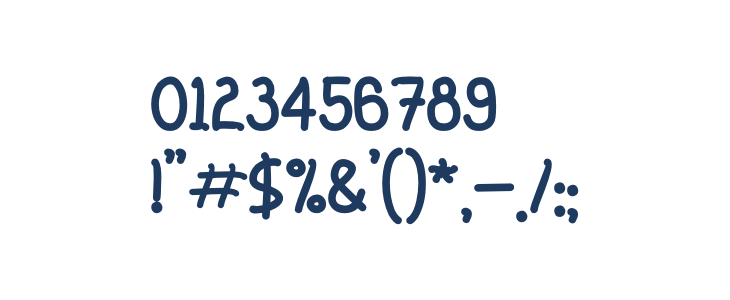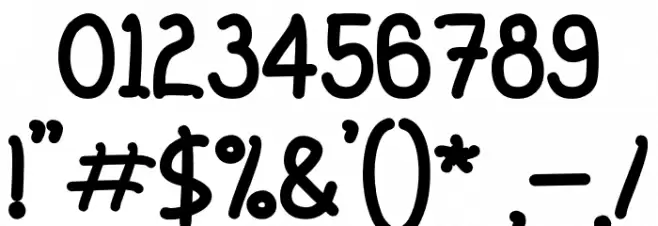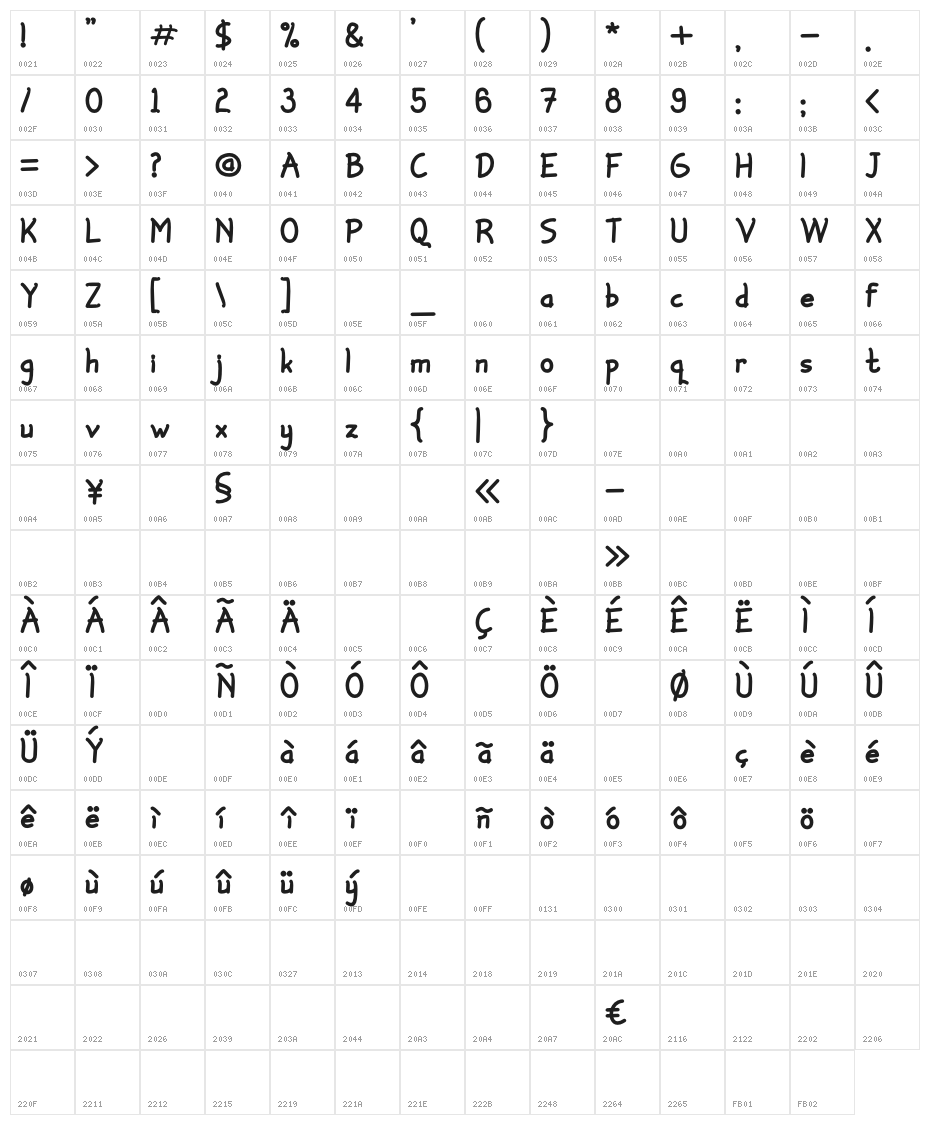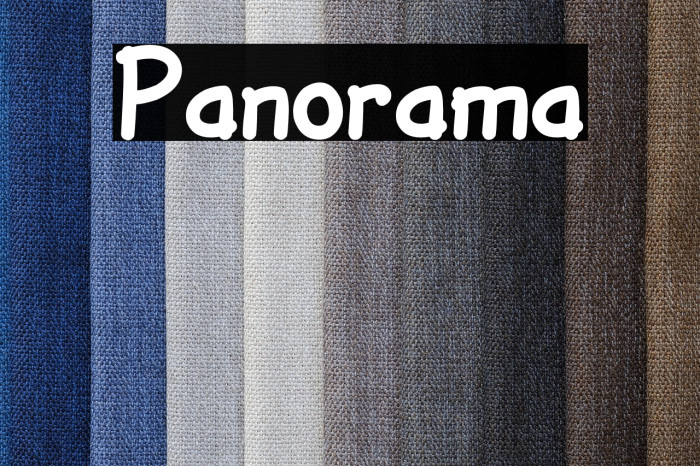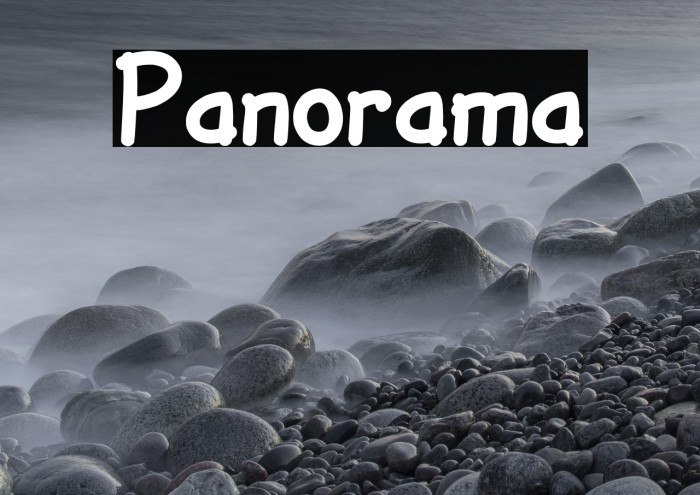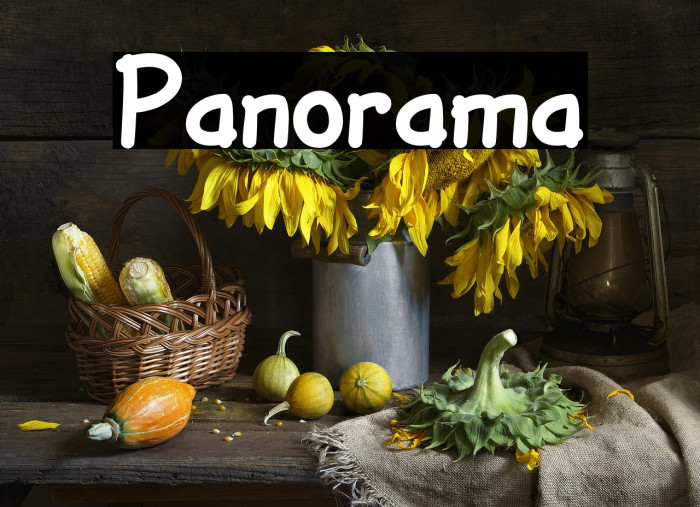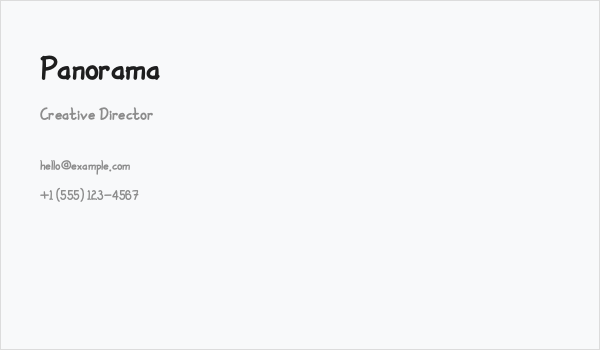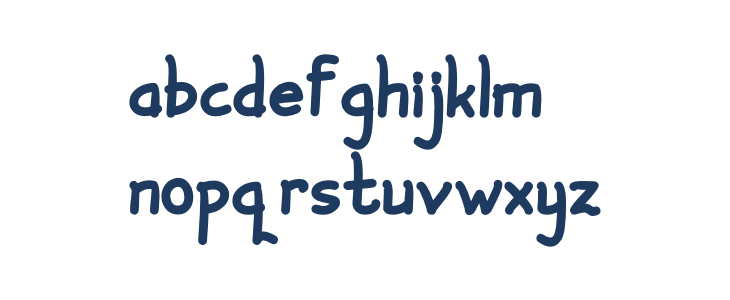
Panorama Font
Panorama Description
This playful and energetic font features a handwritten style with bold, rounded strokes that give it a friendly and approachable appearance. The characters are slightly irregular, adding a whimsical touch that enhances its casual vibe. The uppercase and lowercase letters maintain a consistent flow, while the numerals and special characters complement the overall design with their quirky shapes. This font is perfect for projects that require a personal and informal touch, making it ideal for children's books, greeting cards, and creative branding.
| Proposed Projects | Ideal for children's books, greeting cards, creative branding, and playful designs. |